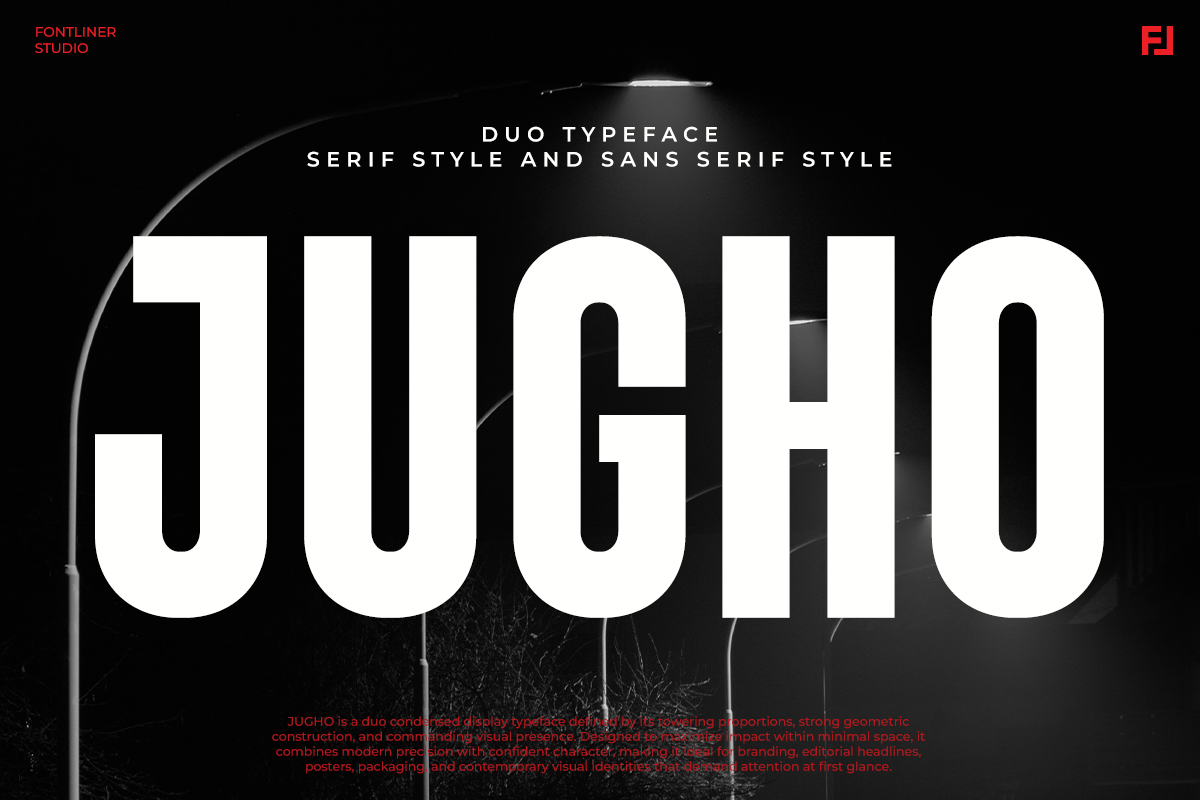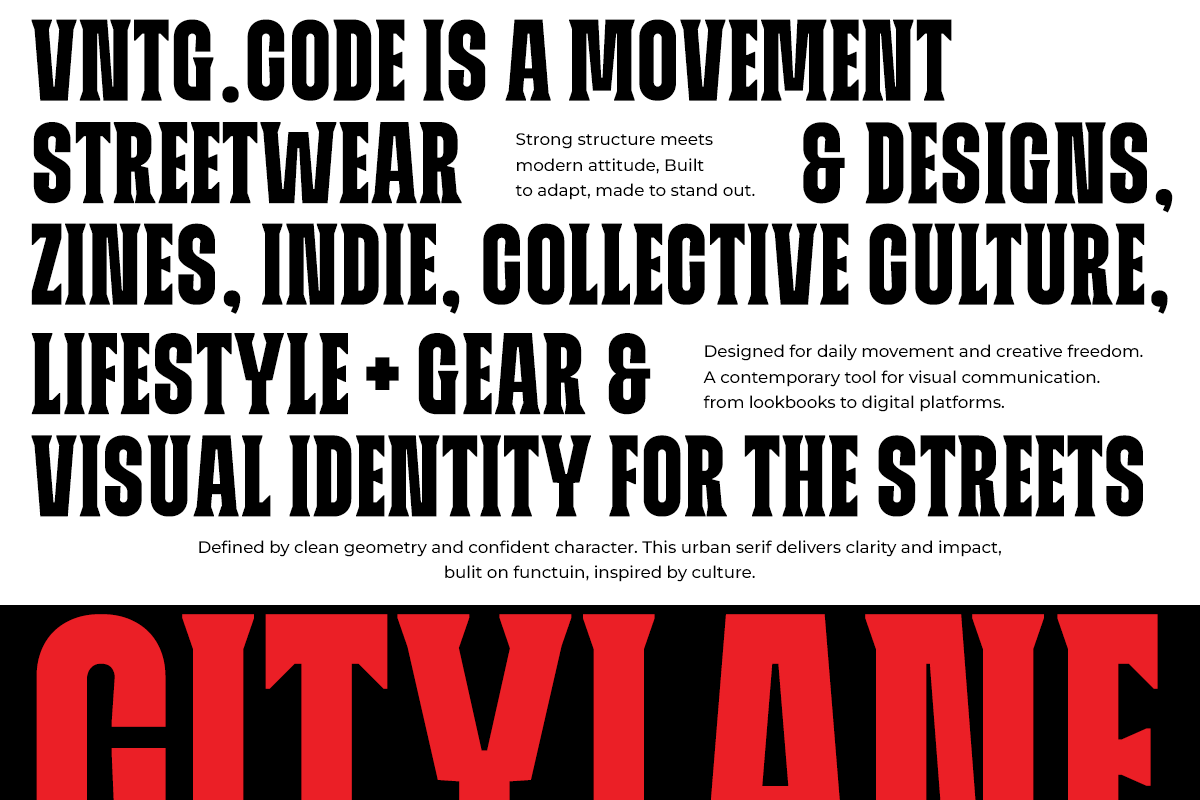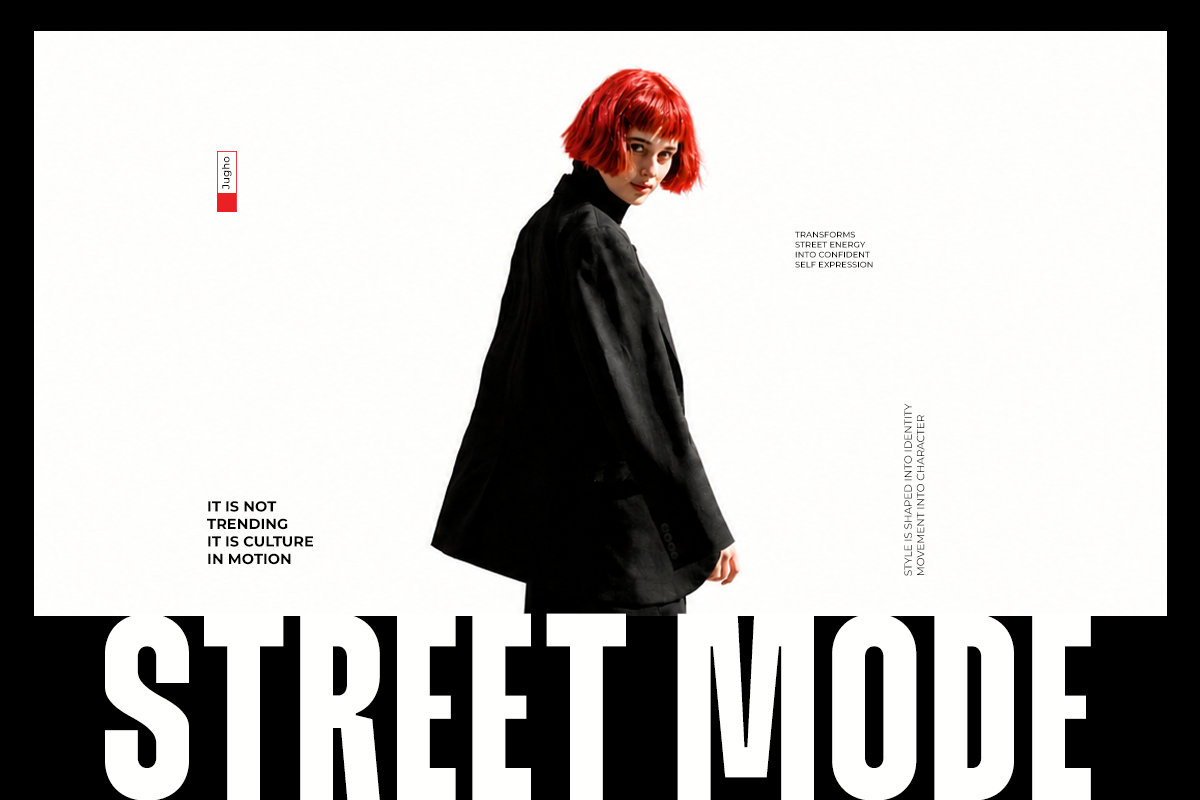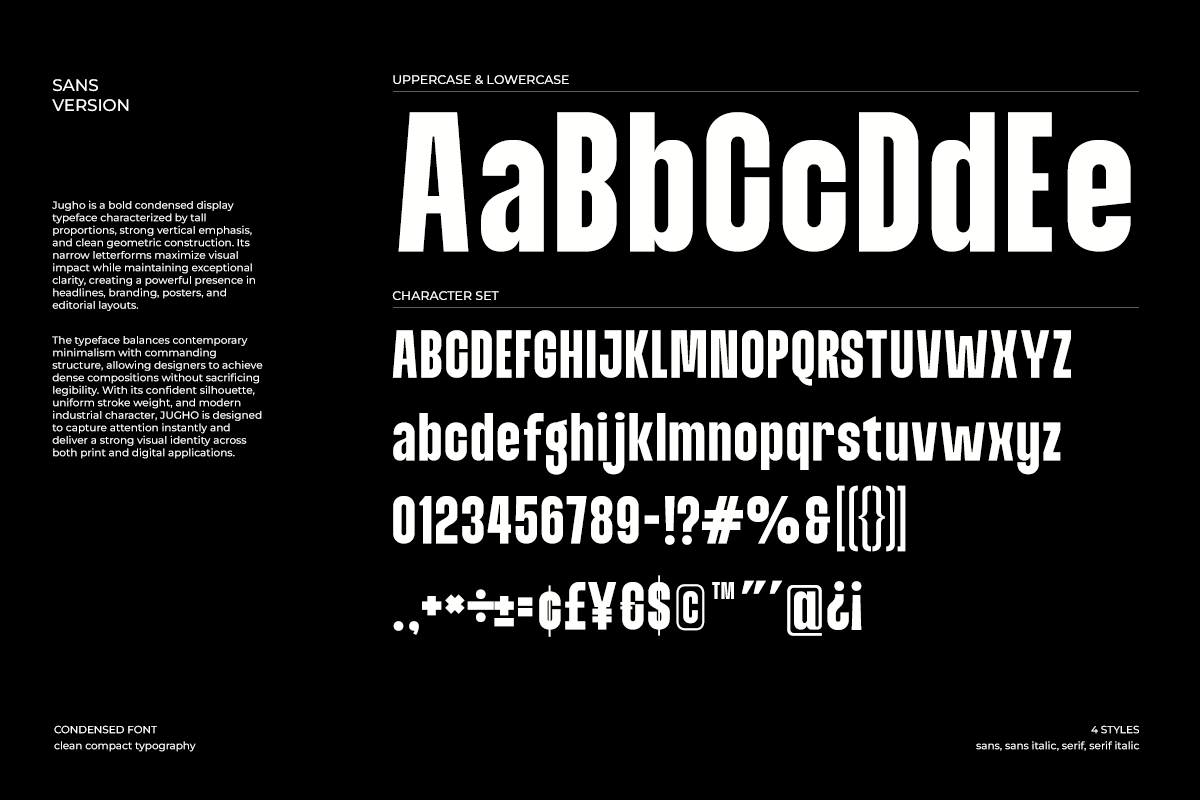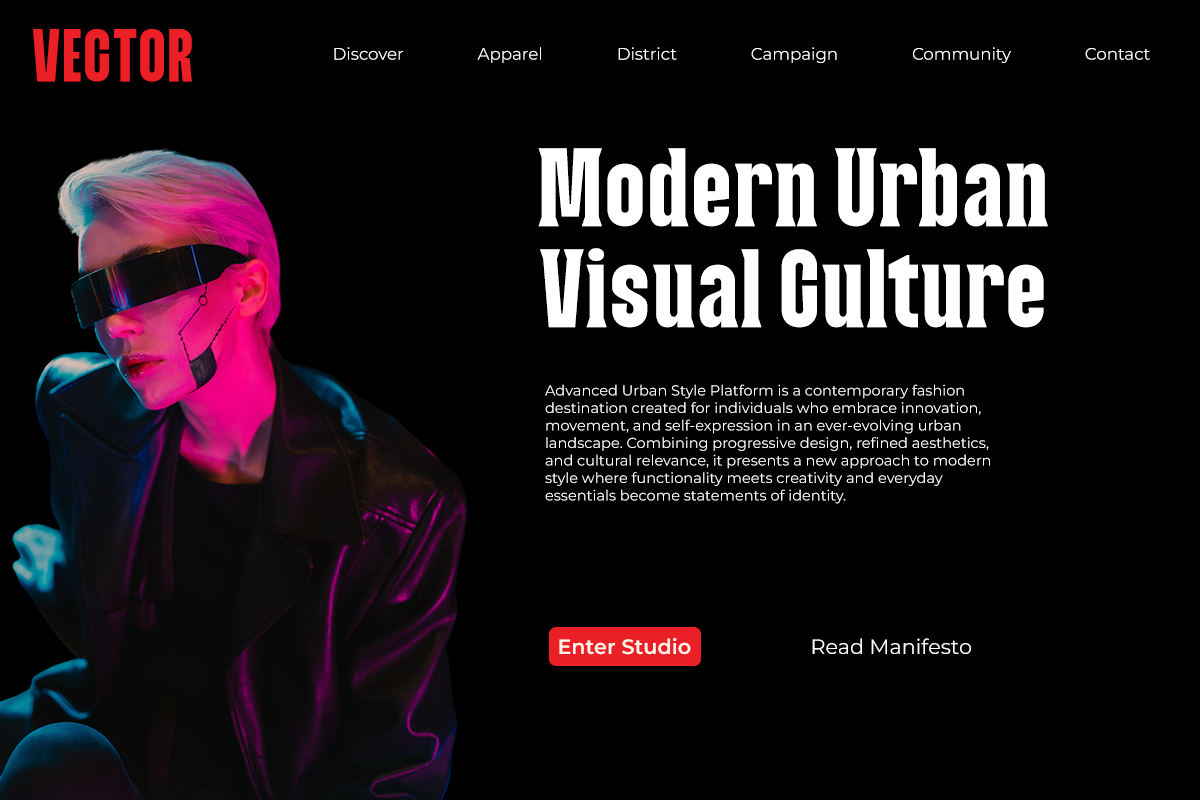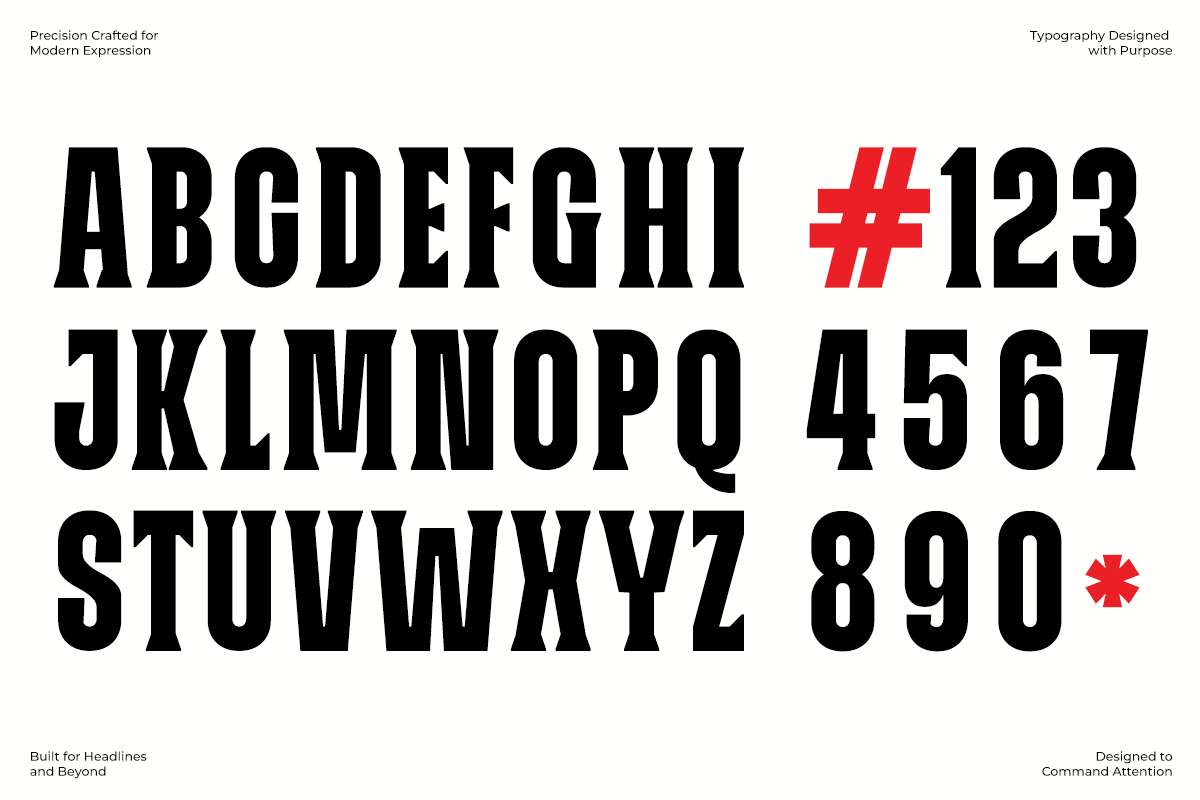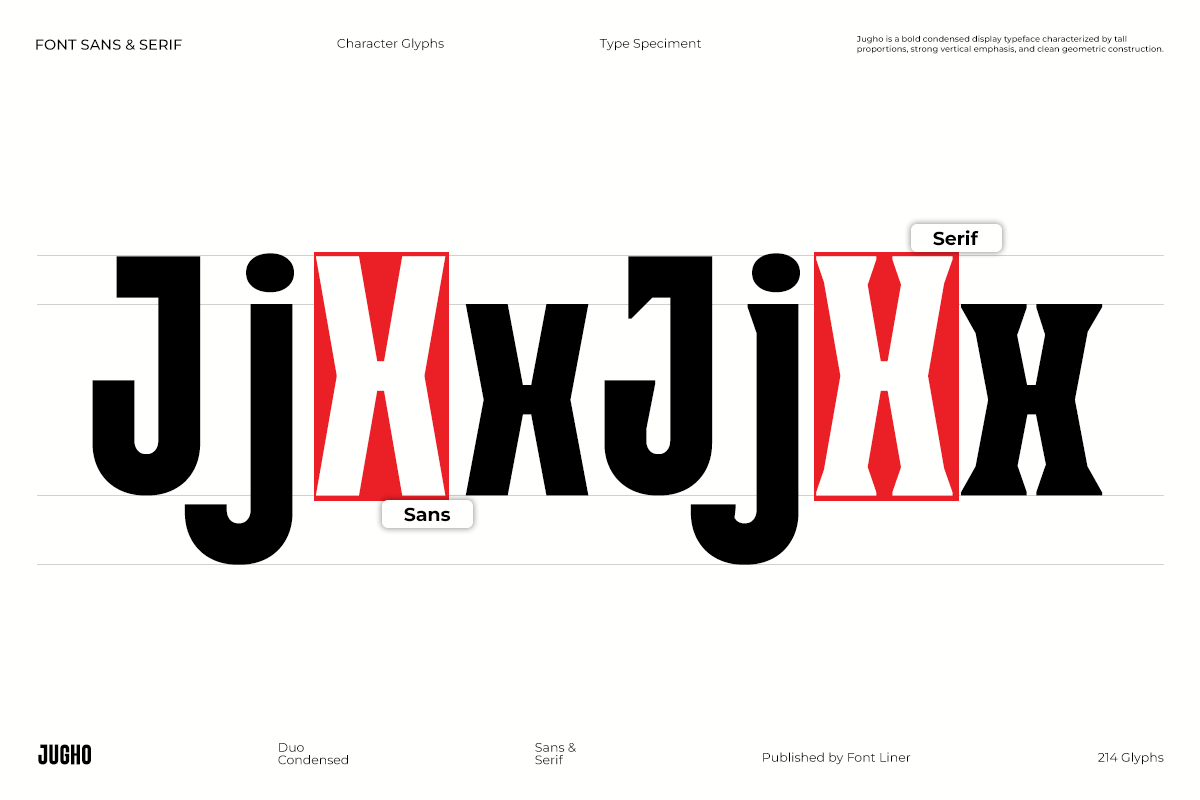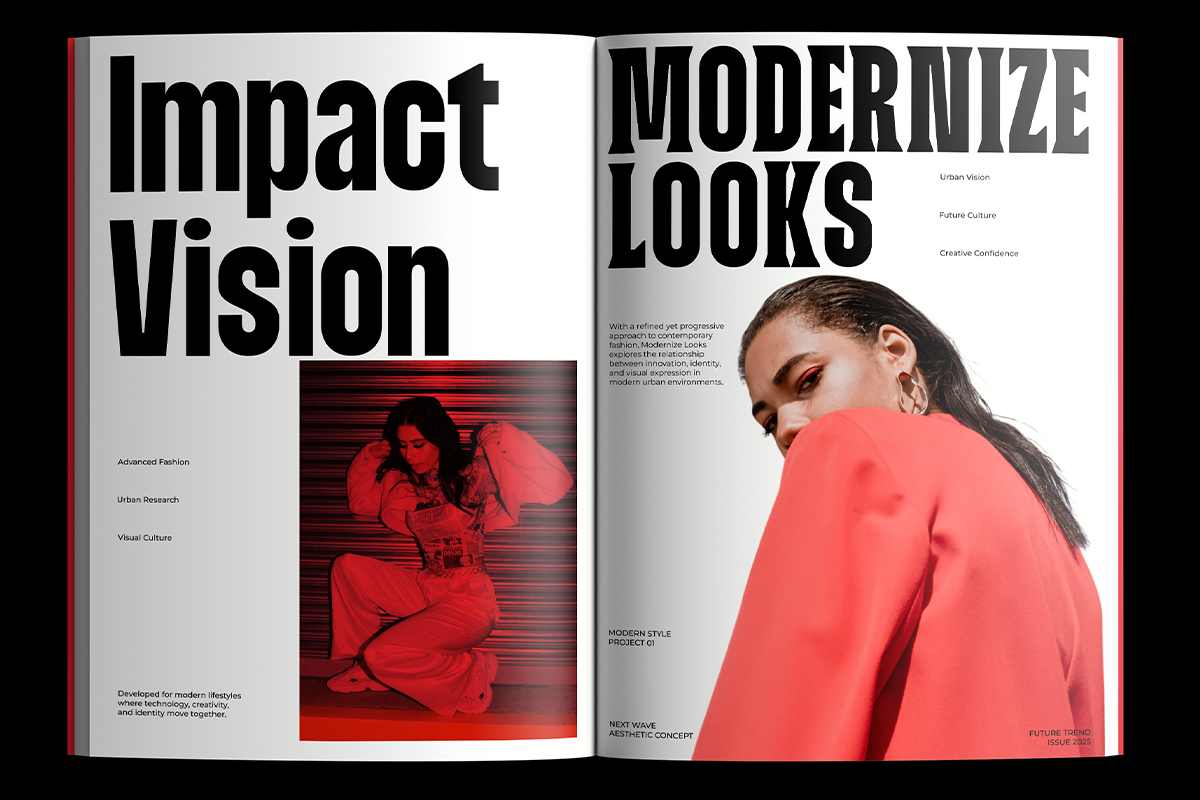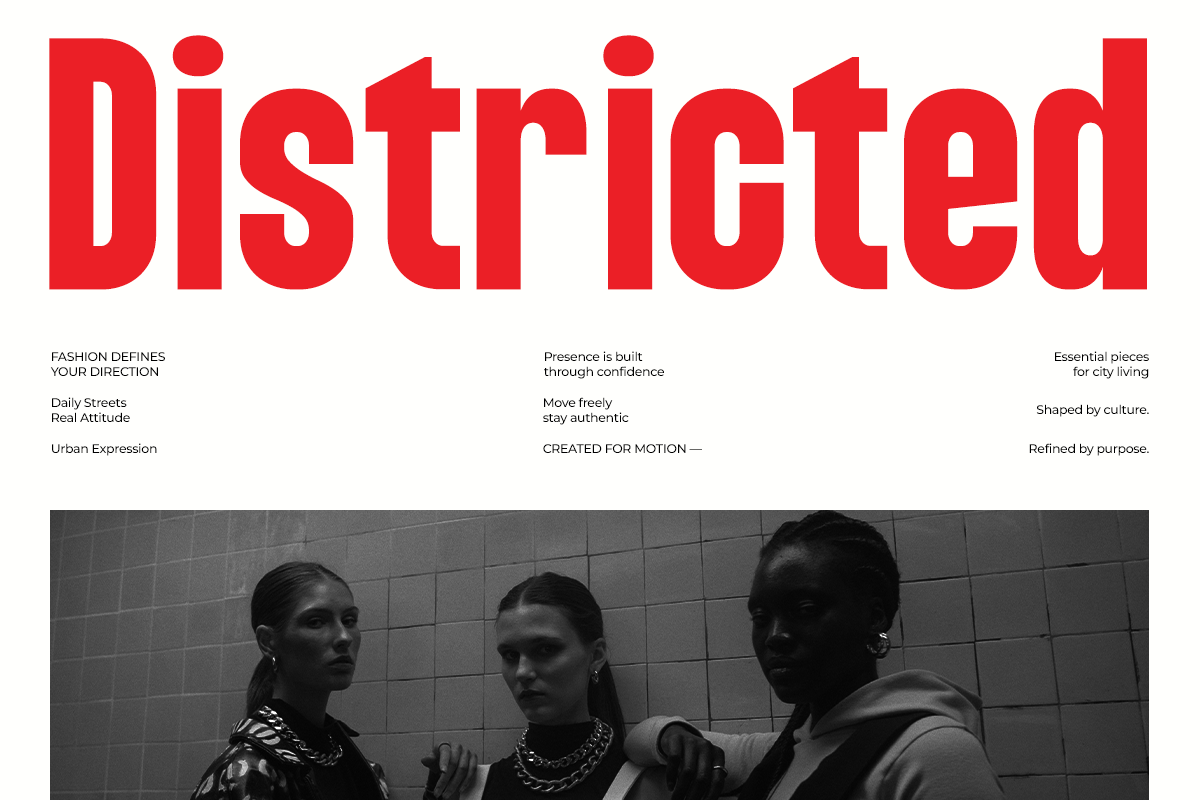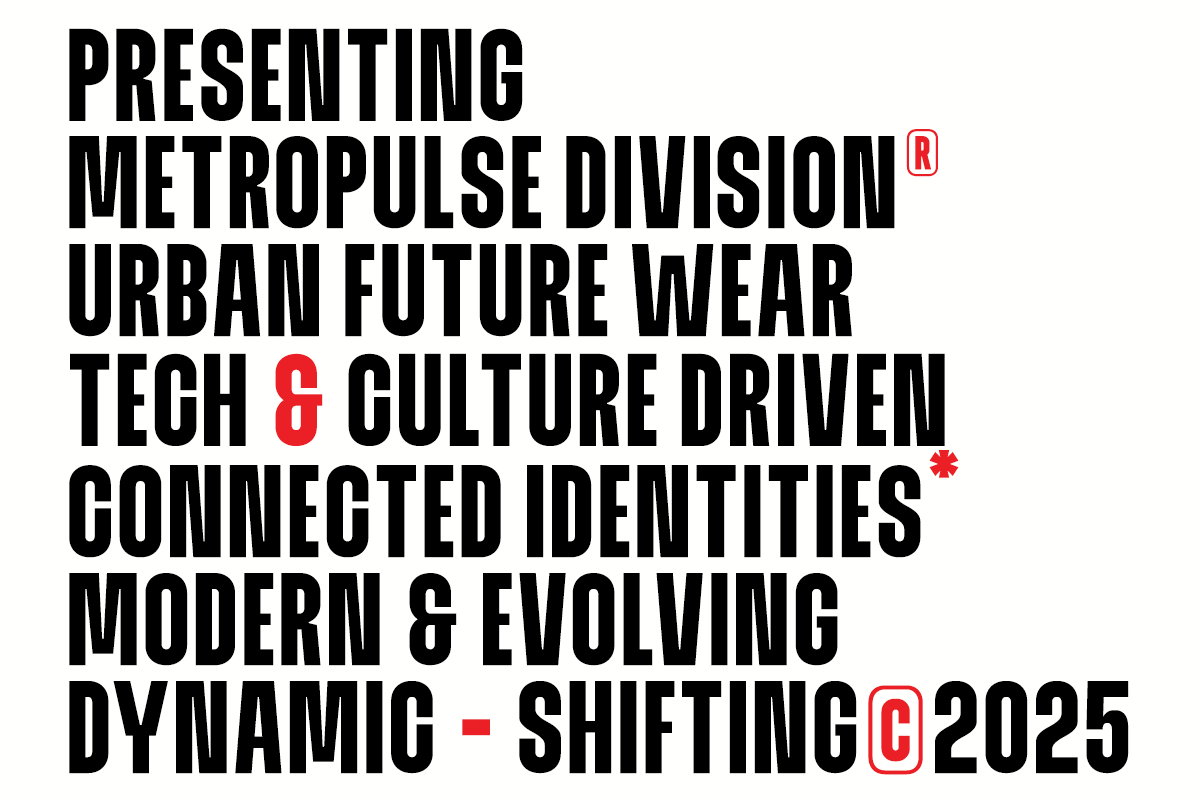
Condensed Duo Sans & Serif - Jugho
Jugho is a bold duo condensed typeface that merges a powerful urban serif with a modern geometric sans serif, delivering exceptional versatility for contemporary design. Inspired by street culture, editorial typography, architectural forms, and futuristic branding, Jugho is crafted with tall proportions, strong vertical emphasis, and commanding letterforms that instantly capture attention. The combination of serif and sans styles allows designers to create dynamic visual hierarchies while maintaining a cohesive and professional identity across projects.
Designed for brands that demand visibility and impact, Jugho thrives in fashion campaigns, label products, magazine covers, posters, packaging, advertising, music artwork, technology branding, and modern editorial layouts. Its condensed construction maximizes space efficiency while preserving legibility, making it ideal for bold headlines, logo systems, social media graphics, website hero sections, and contemporary visual storytelling. Whether creating luxury branding or urban-inspired designs, Jugho delivers a distinctive and memorable presence.
With four versatile styles including Sans, Sans Italic, Serif, and Serif Italic, Jugho offers creative freedom for designers seeking a modern display font family with strong character. The balance between geometric precision and expressive personality makes it a valuable asset for projects that require confidence, originality, and lasting visual impact.
Jugho Sans Serif & Serif Style
Regular & Italic Style
Number, Symbol, & Punctuation
Multi Language Support